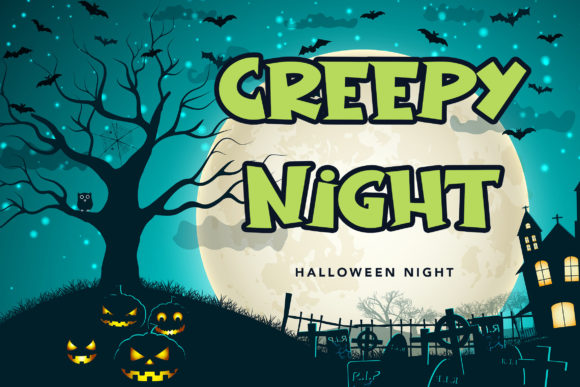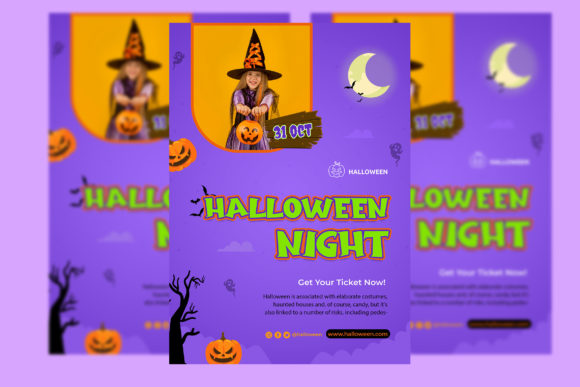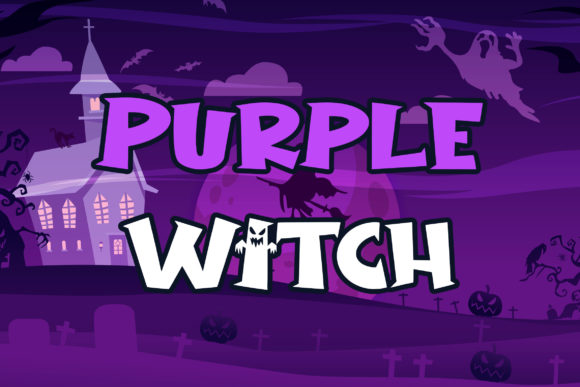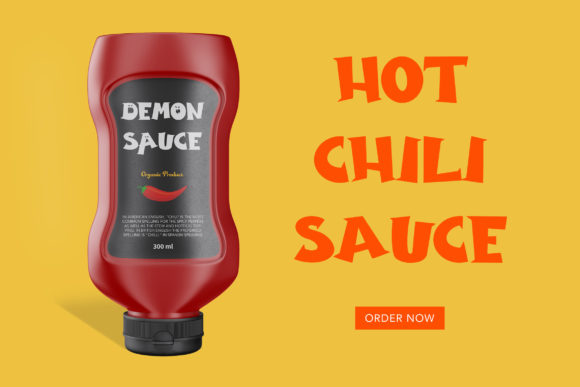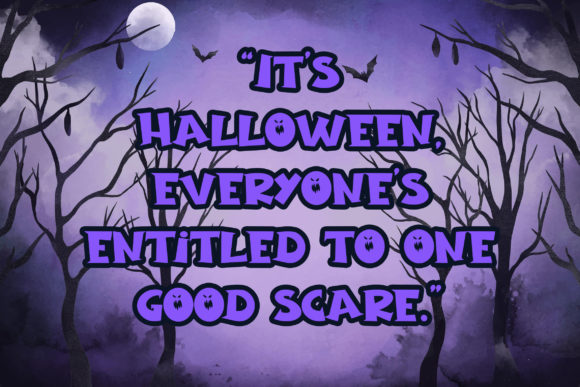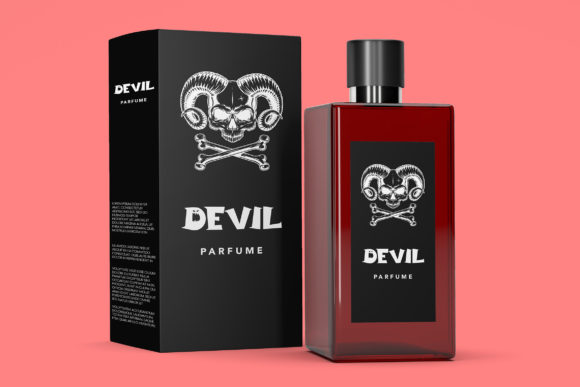
Unleash Your Creativity with Angry Shadow Font
Are you tired of using the same old fonts in your designs? Look no further! Introducing Angry Shadow Font, a thick lettered and funky display font that’s sure to elevate your creations to the next level. With its unique and eye-catching style, Angry Shadow is an incredibly versatile asset that can be used for a wide range of topics and projects.
What is Angry Shadow Font?
Angry Shadow Font is a bold and edgy display font that’s perfect for making a statement. Its thick letters and funky design make it stand out from the crowd, adding a touch of attitude and personality to any design. Whether you’re working on a logo, poster, or social media graphic, Angry Shadow Font is sure to grab attention and leave a lasting impression.
Key Features of Angry Shadow Font
- Thick Lettered: Angry Shadow Font features thick, bold letters that are perfect for creating eye-catching headlines and titles.
- Funky Design: The font’s funky design adds a touch of personality and attitude to any design, making it perfect for creative projects.
- Versatile: Angry Shadow Font can be used for a wide range of topics and projects, from logos and posters to social media graphics and more.
- Easy to Read: Despite its bold and edgy design, Angry Shadow Font is easy to read, making it perfect for use in a variety of contexts.
Why Use Angry Shadow Font?
So why should you use Angry Shadow Font in your designs? Here are just a few reasons:
- Adds Personality: Angry Shadow Font adds a touch of personality and attitude to any design, making it perfect for creative projects.
- Grabs Attention: The font’s bold and edgy design is sure to grab attention and leave a lasting impression.
- Versatile: Angry Shadow Font can be used for a wide range of topics and projects, making it a valuable addition to your font library.
How to Use Angry Shadow Font
Using Angry Shadow Font is easy! Here are a few tips to get you started:
- Use it for Headlines: Angry Shadow Font is perfect for use in headlines and titles, where its bold and edgy design can really make an impact.
- Experiment with Colors: Try using Angry Shadow Font with different colors and backgrounds to create unique and eye-catching effects.
- Pair it with Other Fonts: Angry Shadow Font can be paired with other fonts to create interesting and dynamic typography.
In conclusion, Angry Shadow Font is an incredibly versatile and eye-catching display font that’s perfect for adding a touch of personality and attitude to any design. With its thick letters and funky design, it’s sure to grab attention and leave a lasting impression. Whether you’re a designer, craft, or simply someone who loves to create, Angry Shadow Font is a valuable addition to your font library.